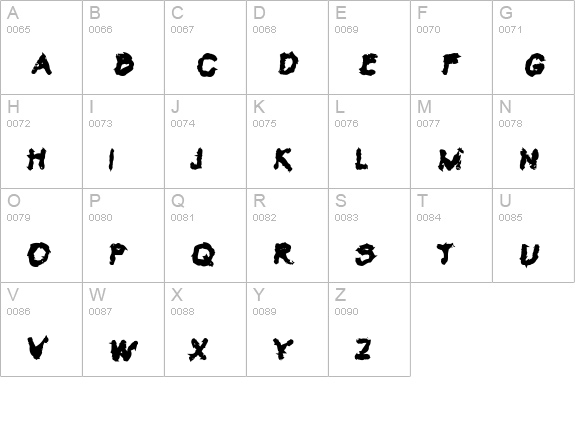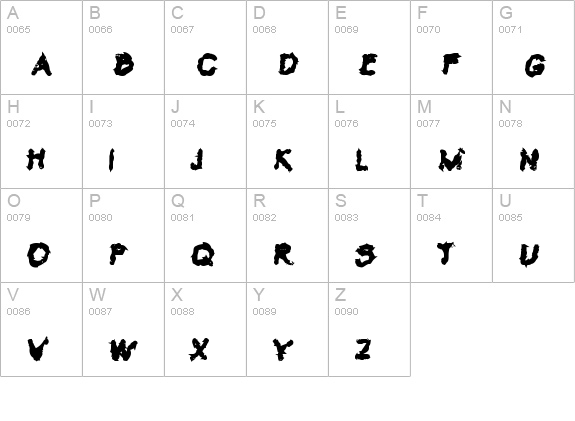
VTC Krinkle-Kut Bold Font Details
VTC Krinkle-Kut Bold is a strong, high-contrast variant in the VTC typeface family \xE2\x80\x94 well suited to headlines, attention-grabbing titles, and strong calls-to-action.
Introducing VTC Krinkle-Kut Bold, a captivating font that exudes a sense of boldness and uniqueness. With its intricate design and strong presence, this font is perfect for making a lasting impression in any creative project. VTC Krinkle-Kut Bold stands out from the crowd with its distinct and eye-catching letterforms. Each character is carefully crafted with sharp edges and intricate details, adding a touch of elegance and sophistication to any text. Whether you're designing a logo, creating a headline, or crafting a poster, this font will elevate your design to new heights. But what sets VTC Krinkle-Kut Bold apart is not just its striking aesthetics. It is also available for free! Yes, you read that right. This remarkable font is freely available to download at FontsMarket.com. Now you can enhance your projects with this exceptional font without worrying about breaking the bank. Imagine the possibilities - you can use VTC Krinkle-Kut Bold to create stunning typography for websites, advertisements, packaging, and more. Its versatility allows it to seamlessly adapt to various design styles, making it a must-have tool for designers, artists, and creatives looking to make an impact. Whether you're a seasoned professional or just starting your design journey, VTC Krinkle-Kut Bold is the font that will take your creations to the next level. With its captivating presence, intricate details, and the fact that it's freely available to download at FontsMarket.com, this font is truly a game-changer. Don't miss out on the opportunity to add this remarkable font to your design arsenal. Download VTC Krinkle-Kut Bold today and let your creativity soar.